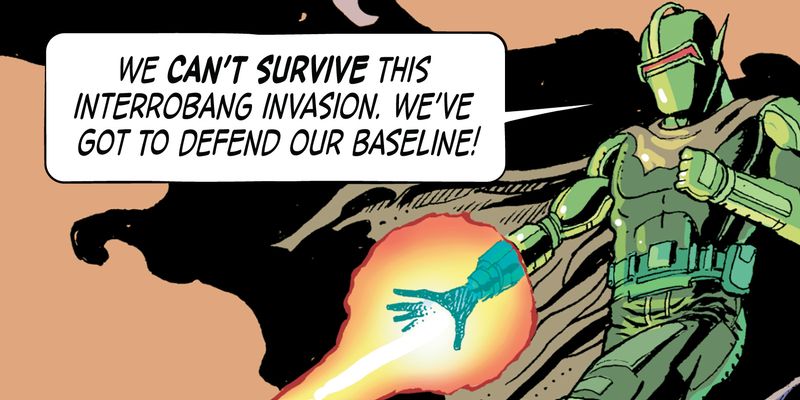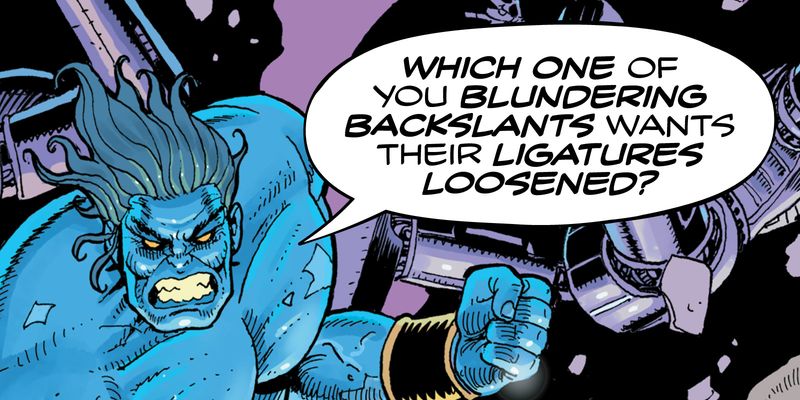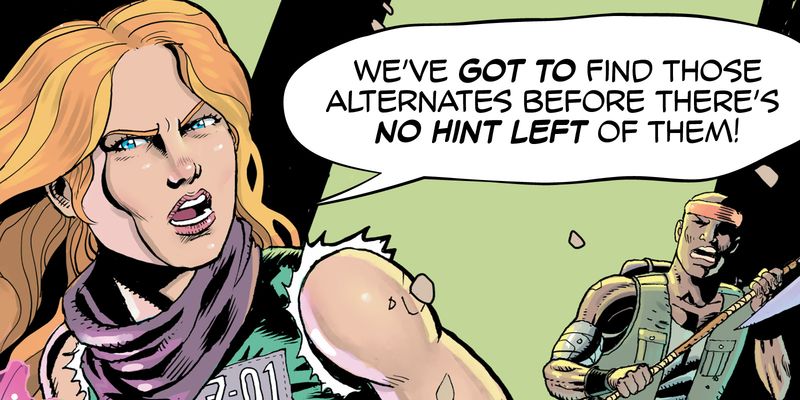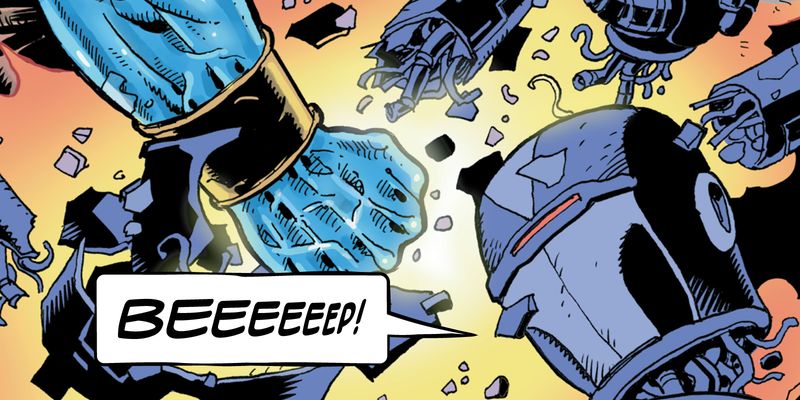
Indoor Kid is a variable-first comic book superfamily designed by DJR with comics writer/editor/publisher Ellis Bojar. It has all the weights and widths and accoutrements that a typographer might expect from a workhorse sans, but is designed specifically for a wide range of comics dialogue and caption styles. Its flexibility gives you the power to adjust the rhythm of the storytelling to fit the dialogue in your story, and its special Emphasis axis makes it easy to enlarge and vertically center words or phrases within a block of text, a longstanding comic book practice (especially for Bold Italic text).